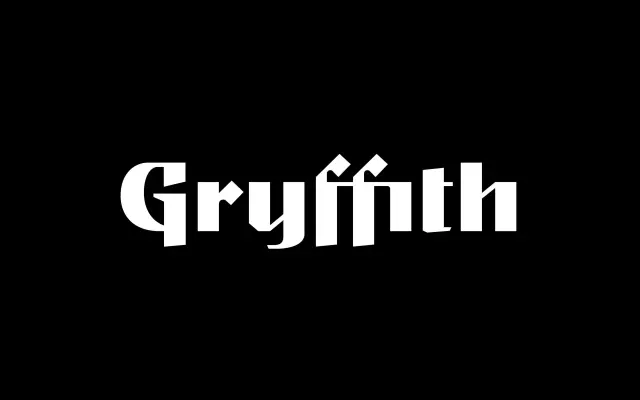
A display sans from Connary Fagen that folds blackletter weight and handwriting rhythm into upright letterforms across seven weights.
Seven weights with matching italics give the family range from editorial headlines to heavy poster work. The letterforms draw their heft from blackletter tradition while the overall structure stays within a sans-serif framework, producing a distinctive tension suited to branding and display applications. Latin script support spans the major Western European languages including Czech, Polish, Turkish and Romanian.
Described by the foundry as blending sans-serif form with handwriting rhythm and blackletter heft, placing it firmly in the display category rather than a functional text sans.